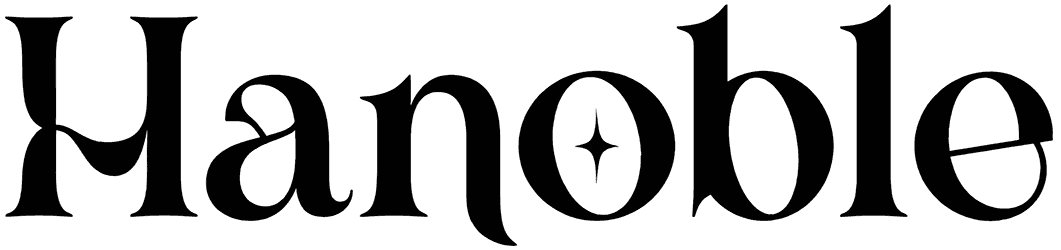
Hanoble Font
Sometimes, simple and humble words are the perfect selection to impress your viewers, and a serif font can bring them to your layout. Hanoble font, with its classic and noble mood, includes almost all characters. You can create a formal business card for any field, a fashion event Instagram post, or so on with this basic font and show off your creative talent.
Hanoble is a stylish modern font with ligature-rich Serif. Minimalist character that allowing you to easily edit the designs. It is perfect for branding, wedding invites and cards, and maybe for some project.
150 Special ligatures